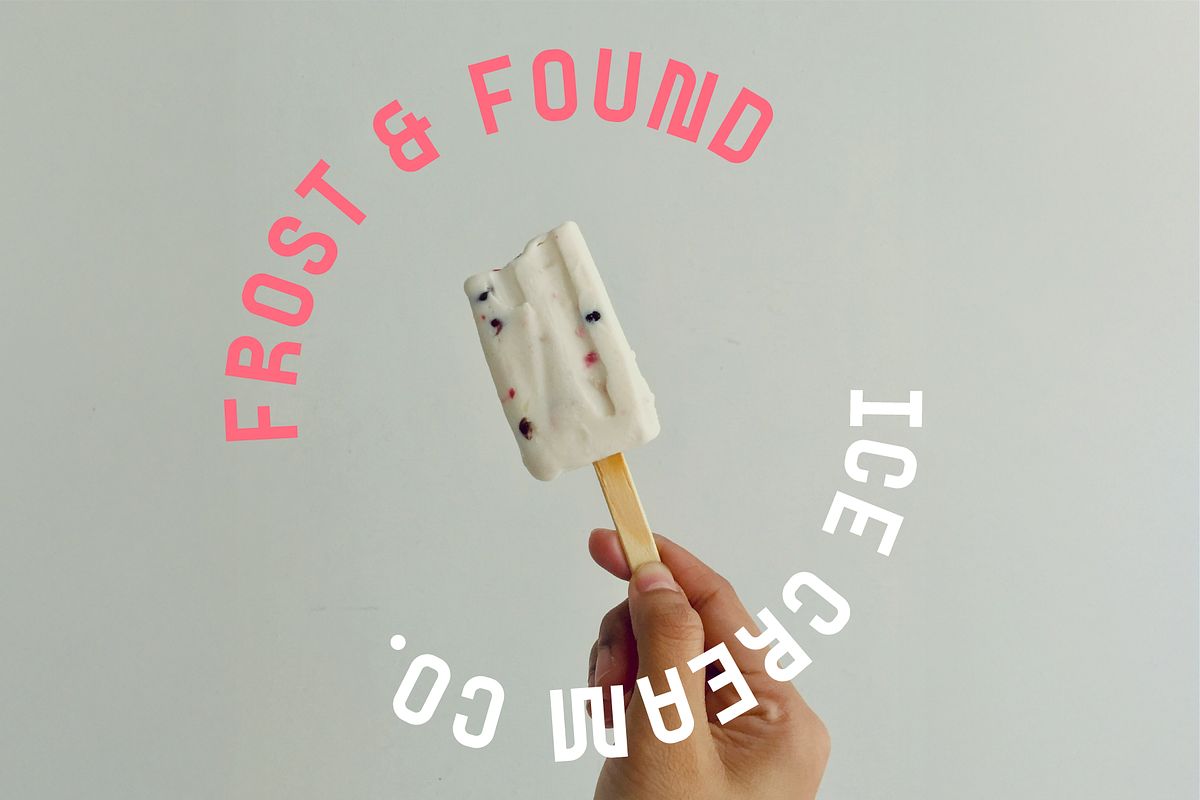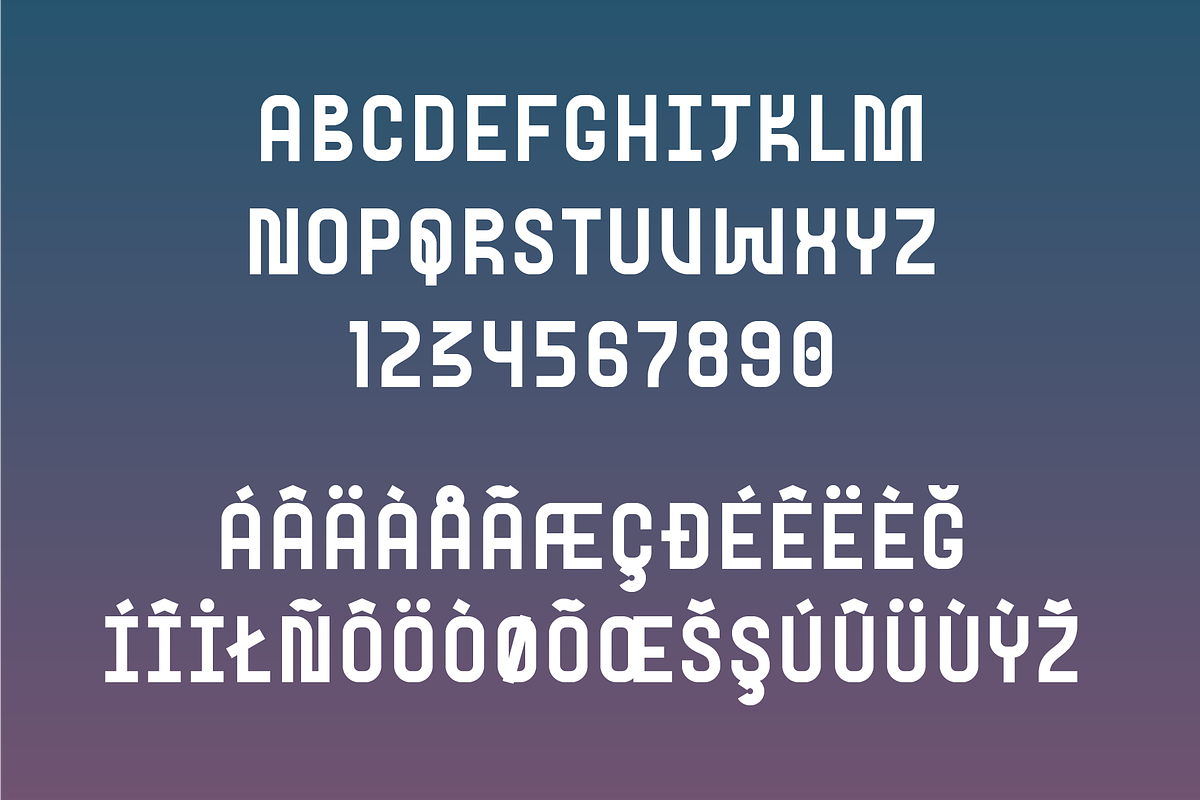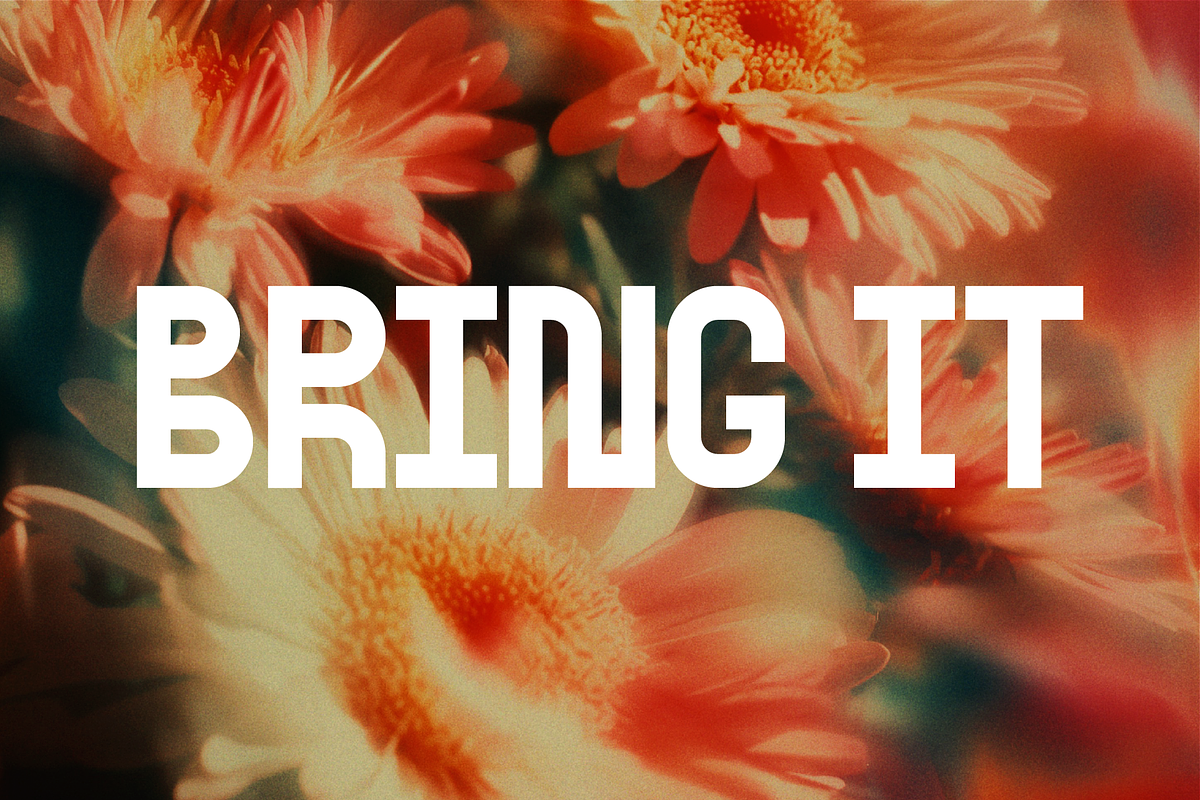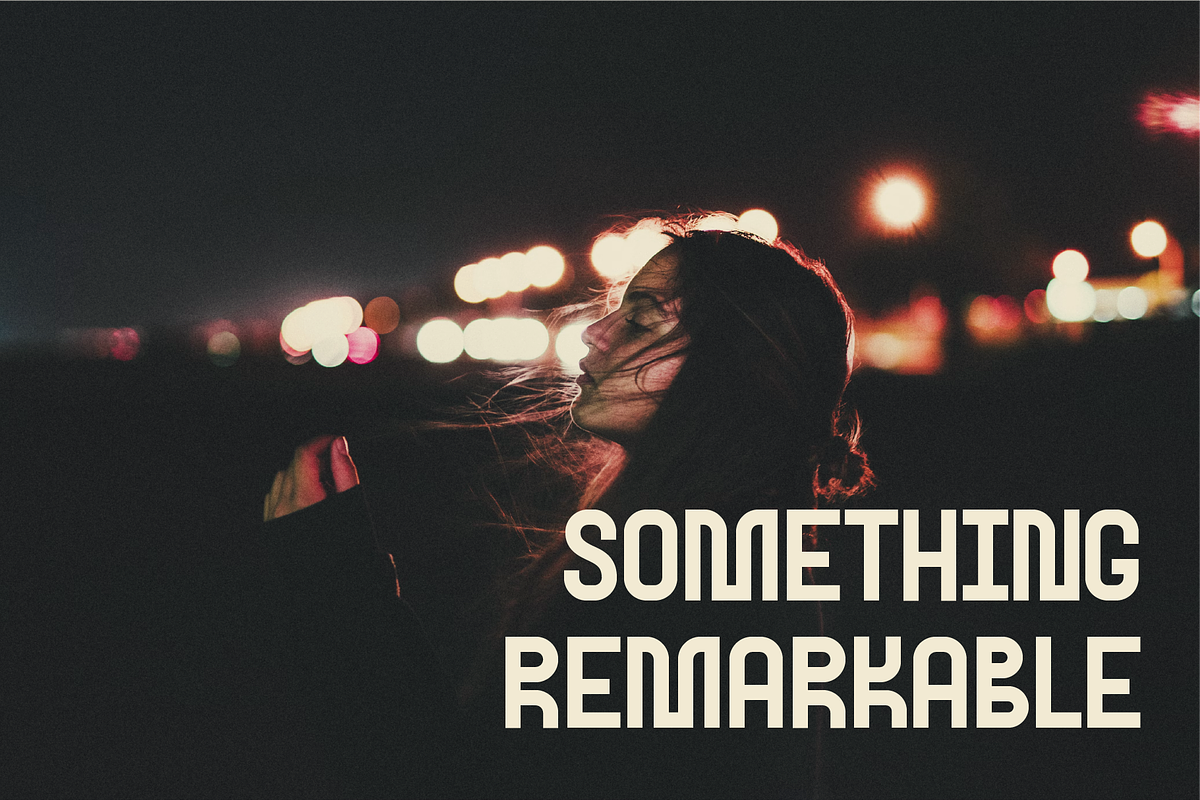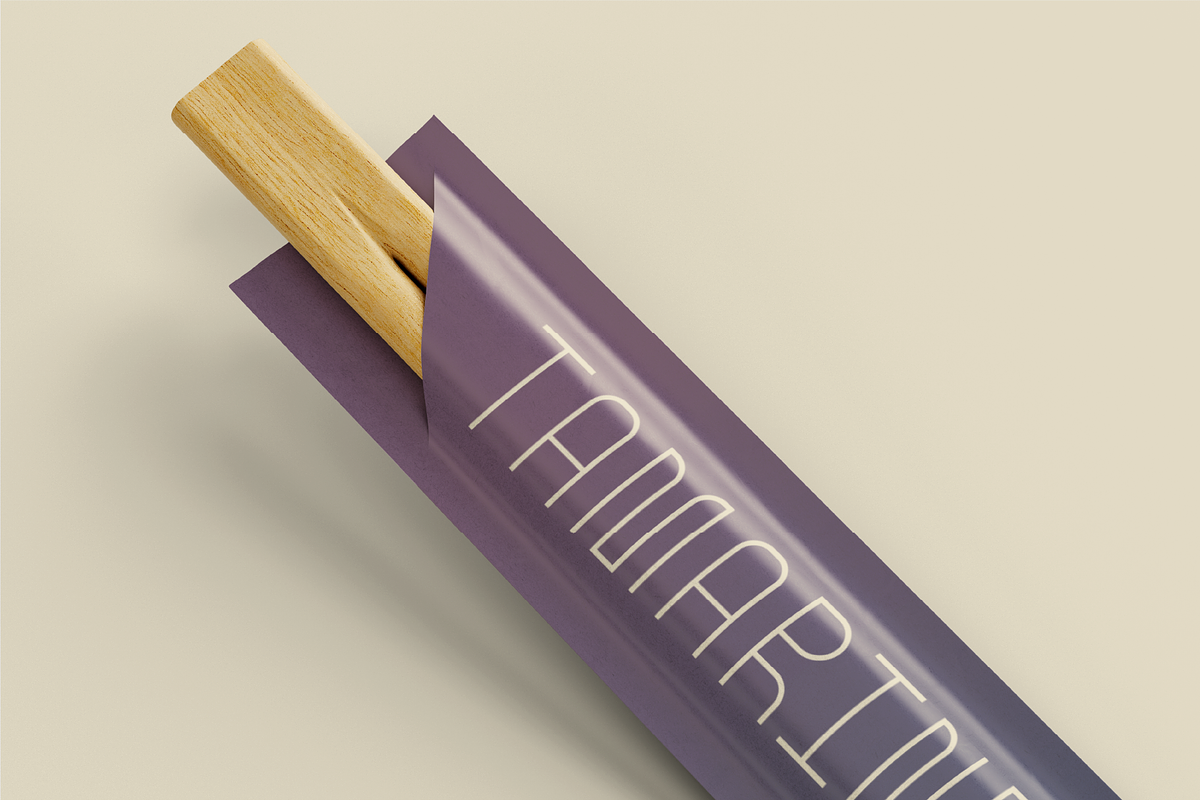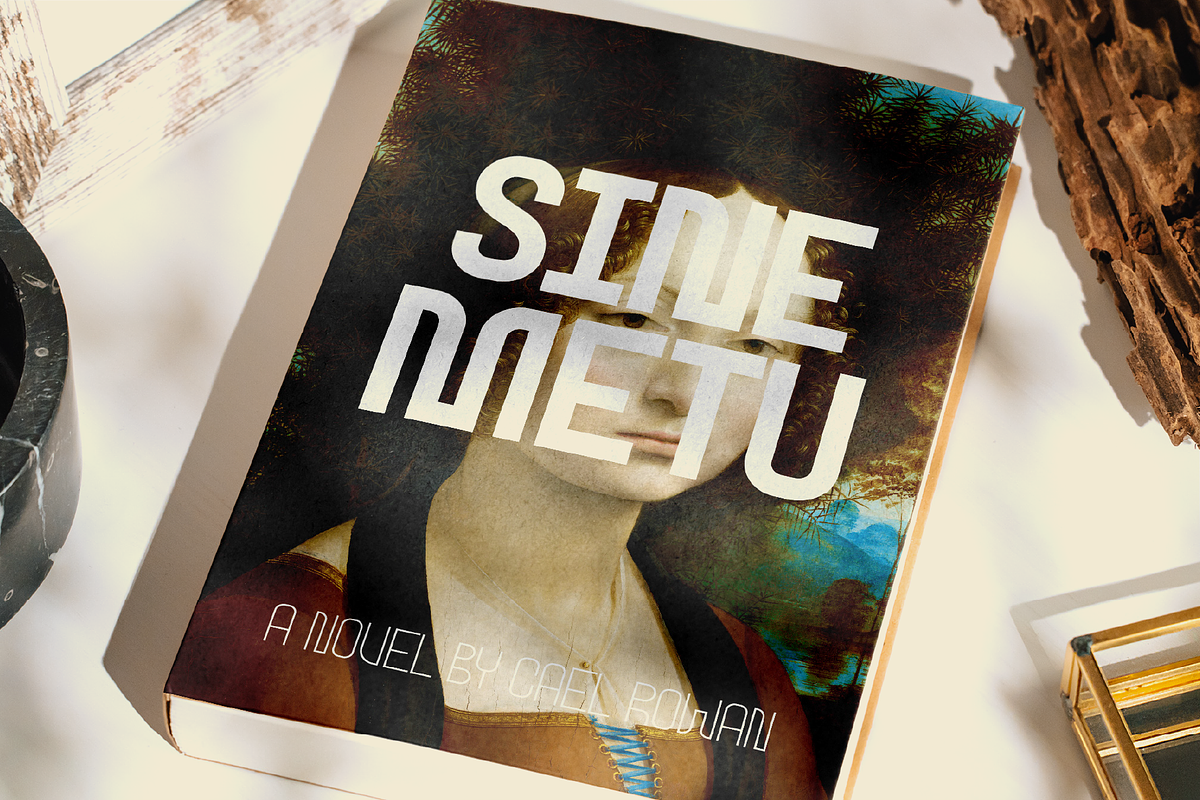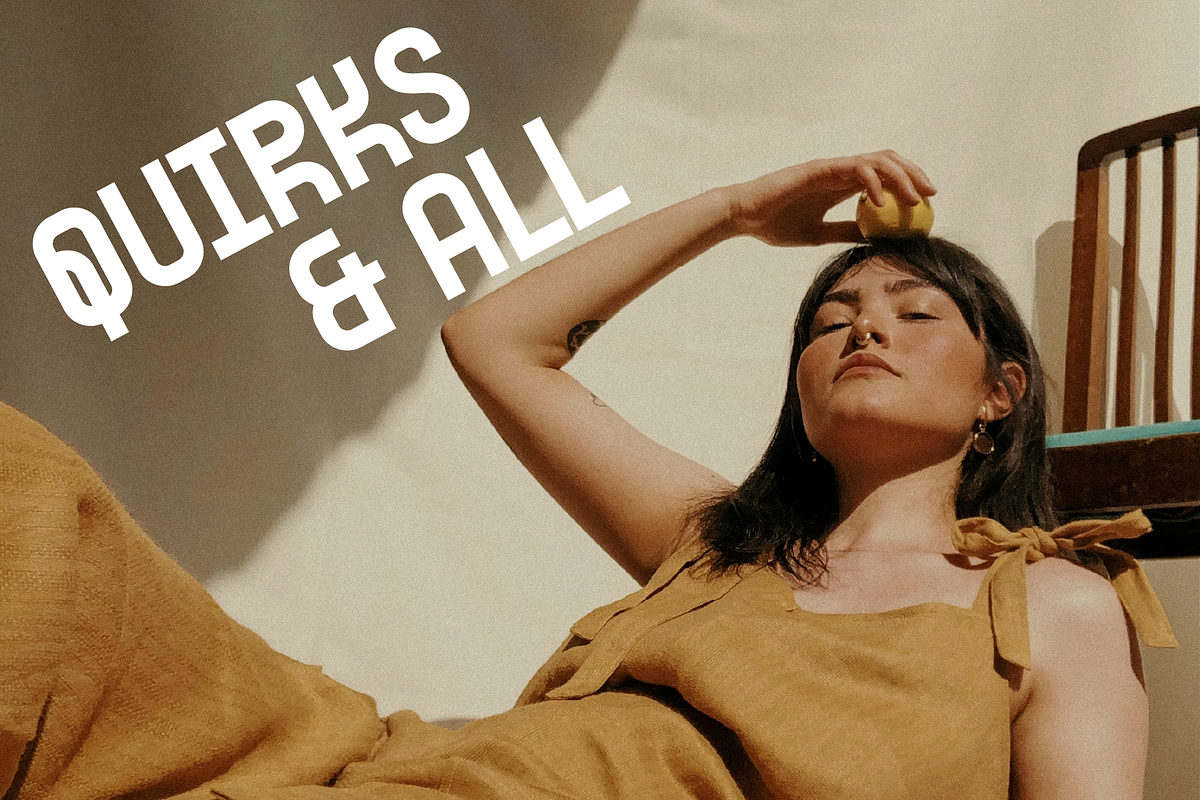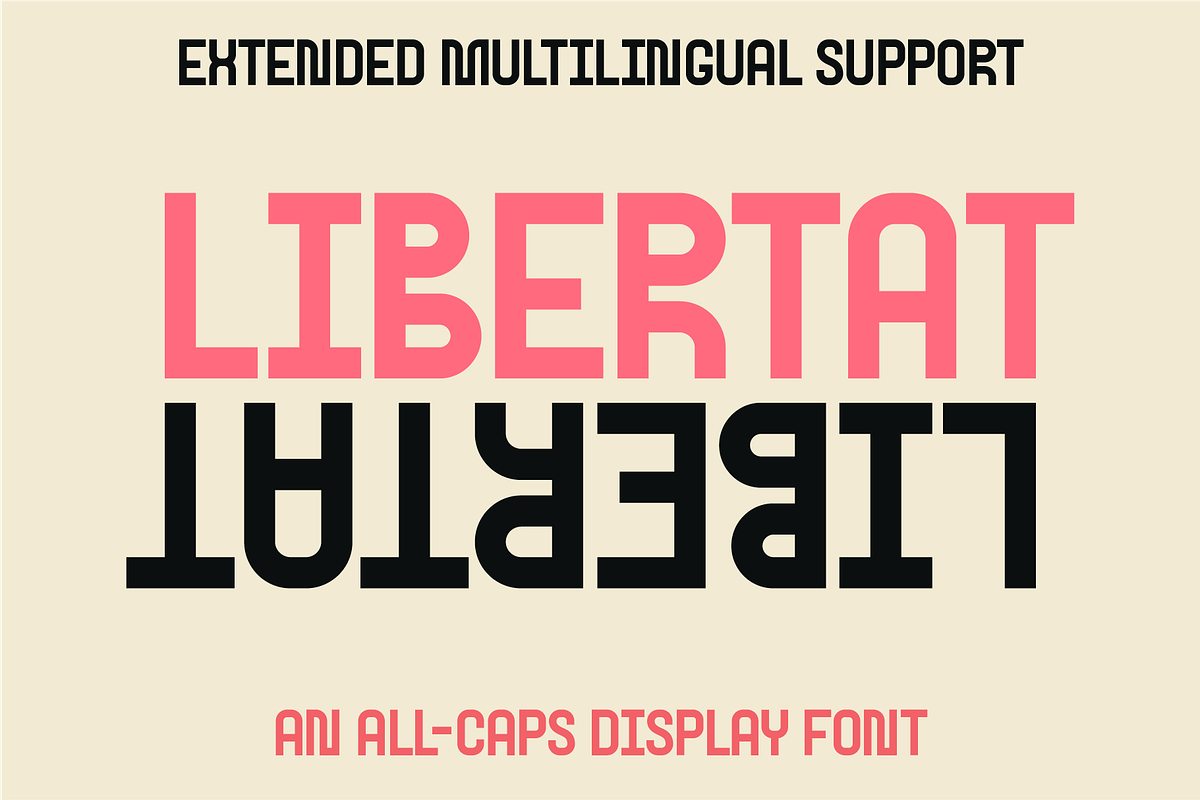
Libertat Display
Libertat is a bold, geometric display typeface that fuses industrial precision with contemporary character. Designed for impact and legibility, it features squared forms, tight curves, and a modular rhythm that make it ideal for logos, posters, headlines, and branding systems that demand presence and distinction.
Its open counters and strong vertical proportions give it a confident, architectural feel, while subtle rounded details soften the tone for modern versatility.
- All-caps Latin alphabet
- Extended multilingual support
- Numerals and punctuation
- Optimized for print and digital environments
Ideal For: Brand identity, editorial design, packaging, sports and technology branding, signage, and bold typographic compositions.